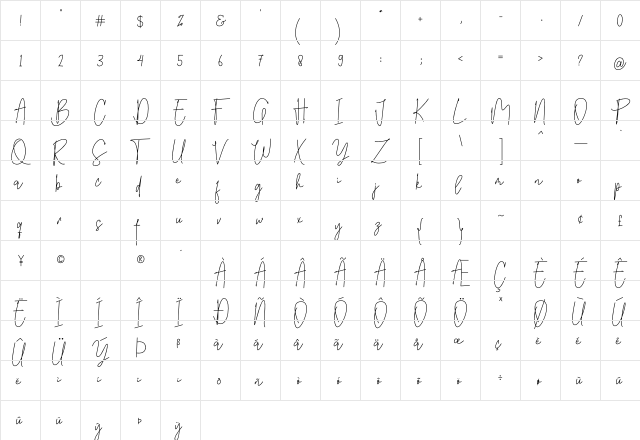
Billstone Demo Regular
| Foundry | Nugi Nurzahid |
| Designer | Nugi Maulana Nurzahid |
Design Context for Billstone Demo Typeface
Billstone Demo is a composed and adaptable typeface that performs quietly and consistently across a wide range of design contexts.